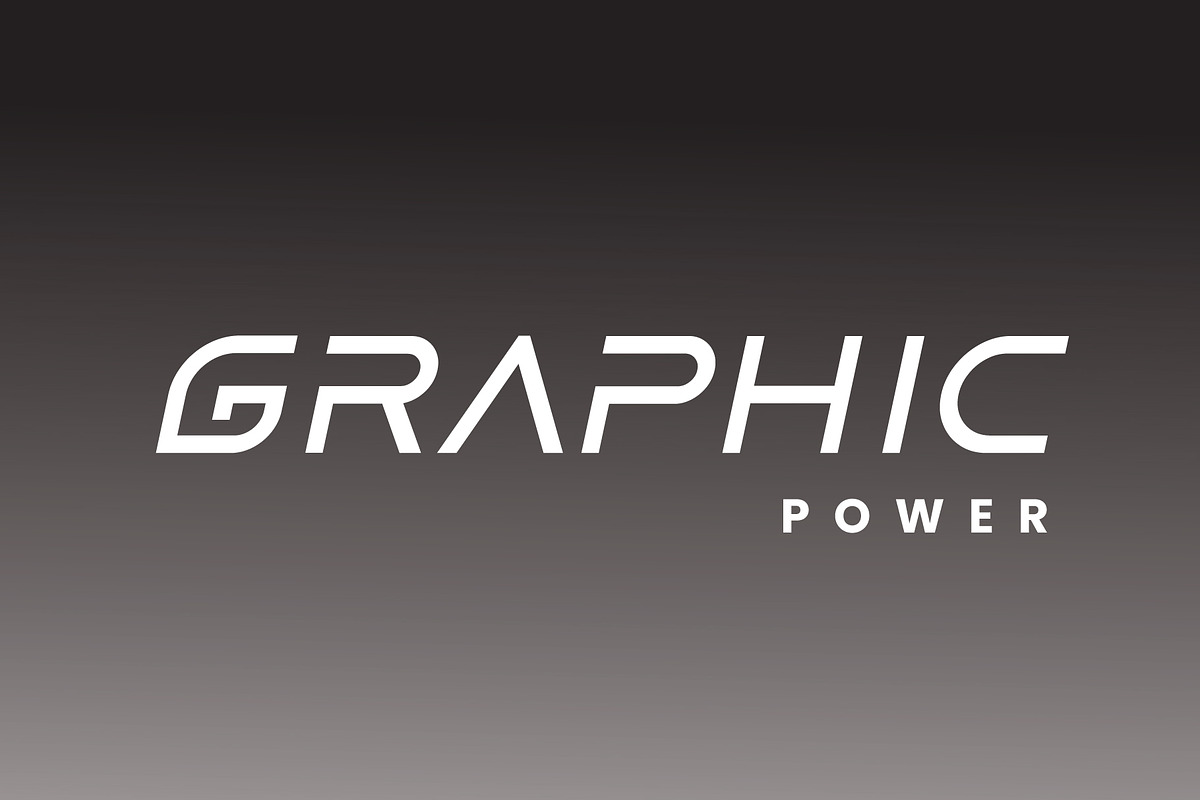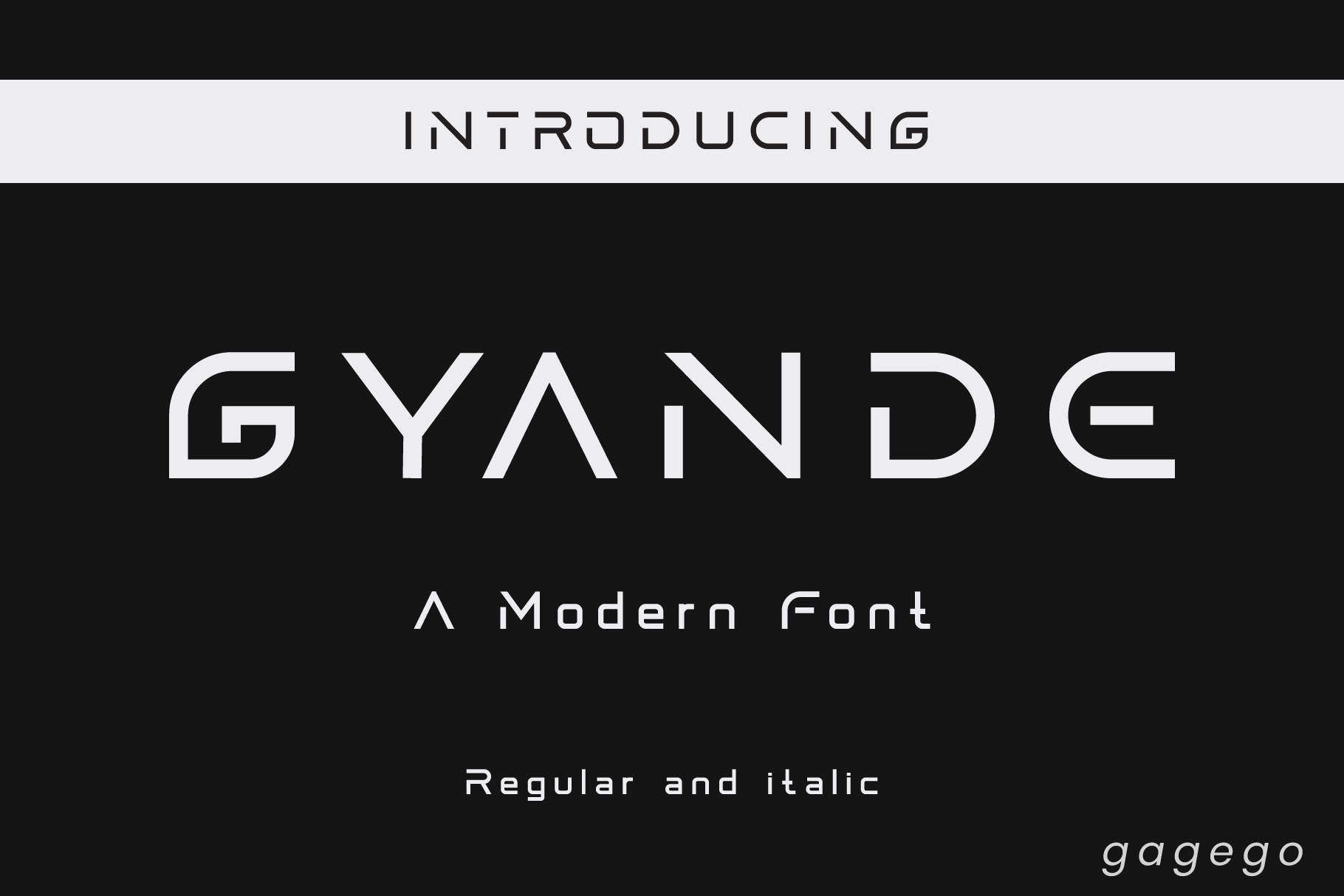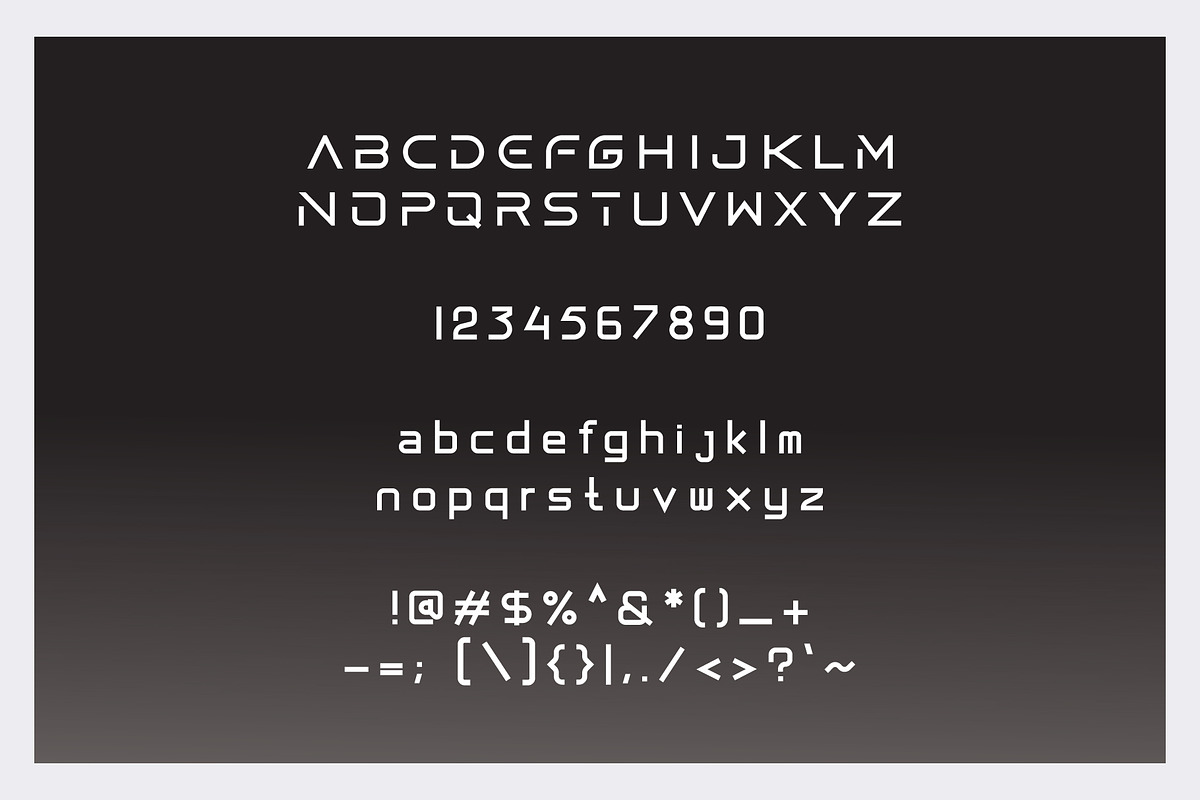
Gyande font modern
Gyande font is a font created inspired by modern life.
This font consists of 4 models
- regular
- regular italic
- bold
bold italic